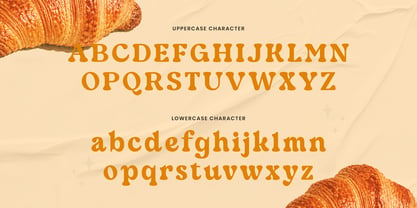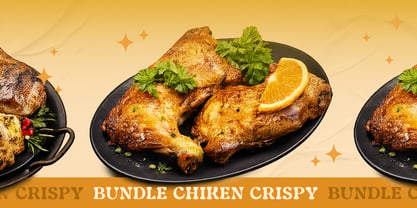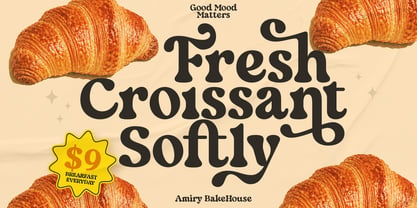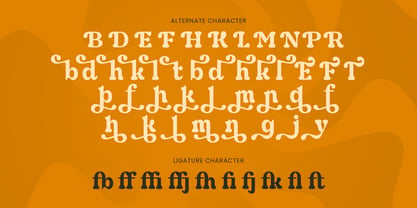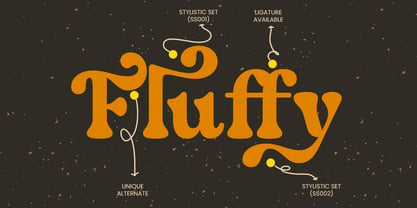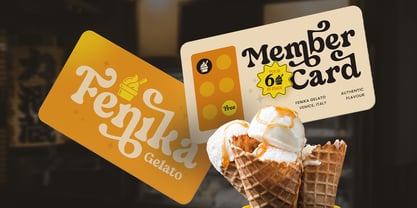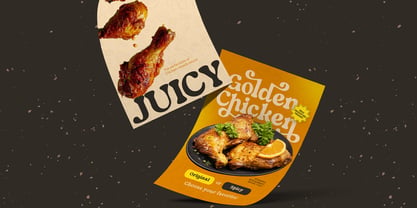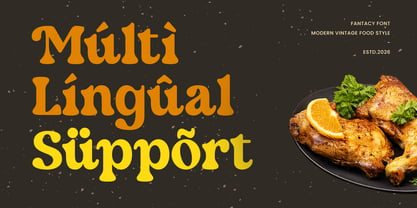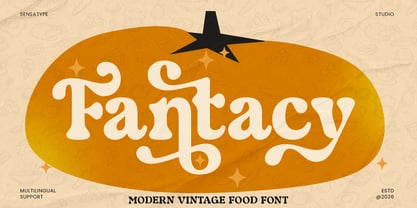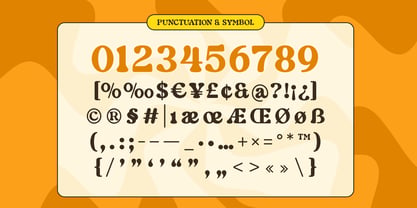
Fantacy
Fantacy is a modern vintage food font designed to bring delicious charm and nostalgic personality to your typography. With classic-inspired shapes, friendly rhythm, and a fresh modern finish, this typeface creates an appetizing visual tone that feels warm, playful, and instantly memorable.
Built for food-focused branding, Fantacy works beautifully across restaurant logos, café menus, product packaging, snack labels, posters, signage, social media promotions, and digital marketing visuals. Its modern vintage character keeps every headline clear and impactful while adding a flavorful retro touch across both print and digital layouts.
Whether you’re launching a food brand, designing menu highlights, creating packaging for snacks or beverages, or building cheerful culinary campaigns, Fantacy provides a stylish vintage foundation that makes every word feel tasty, inviting, and full of character.
Inspiration Behind Fantacy
Fantacy is inspired by classic food packaging and modern retro branding—where nostalgic shapes, friendly curves, and bold visual rhythm make products feel more appetizing and approachable. The design focuses on vintage warmth and modern readability to support food-related projects with a fresh, flavorful, and brand-ready look.
Make your food branding feel warm and memorable with Fantacy—a modern vintage font crafted for delicious visual impact. 🍽️✨